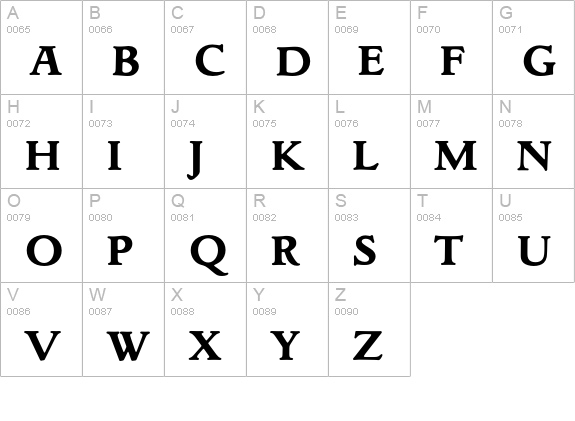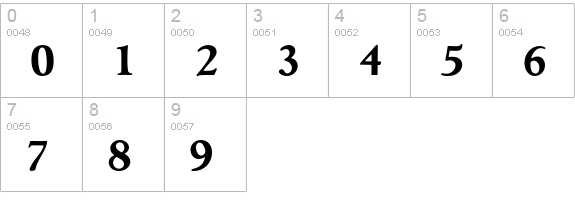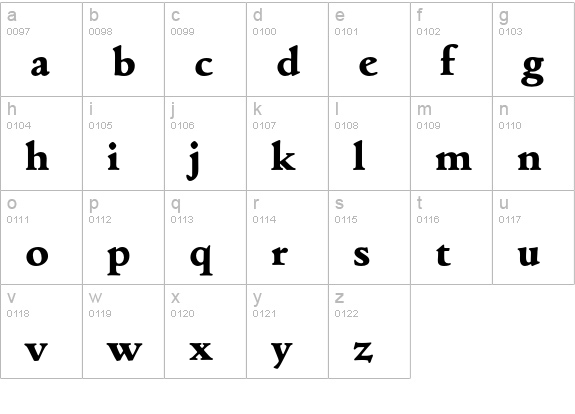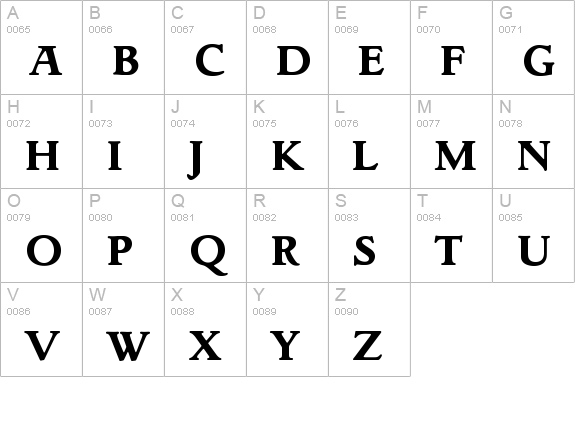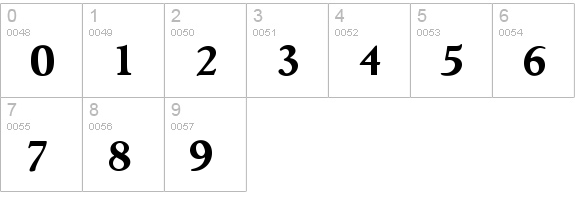
Goudita-Bold Font Details
Goudita-Bold is a strong, high-contrast variant in the Goudita typeface family \xE2\x80\x94 well suited to headlines, attention-grabbing titles, and strong calls-to-action.
Goudita-Bold is a stunning and versatile font that exudes elegance and sophistication. With its bold and eye-catching design, this font is perfect for adding a touch of luxury to any project. Whether you're designing a logo, creating a poster, or crafting a stylish website, Goudita-Bold will make a bold statement. What makes Goudita-Bold even more appealing is that it is available for free download at FontsMarket.com. This means you can easily access this premium font without breaking the bank. So, if you're looking to elevate your designs with a touch of class, look no further than Goudita-Bold. Download it for free today and see the difference it can make in your projects.